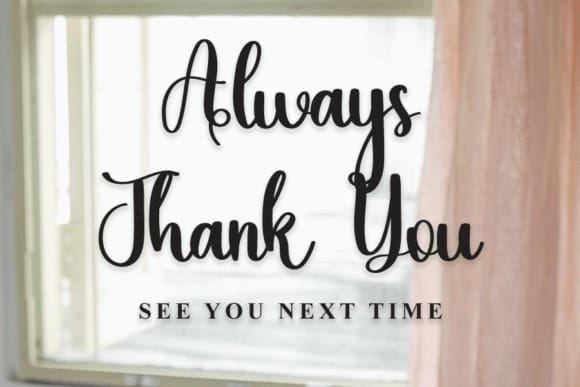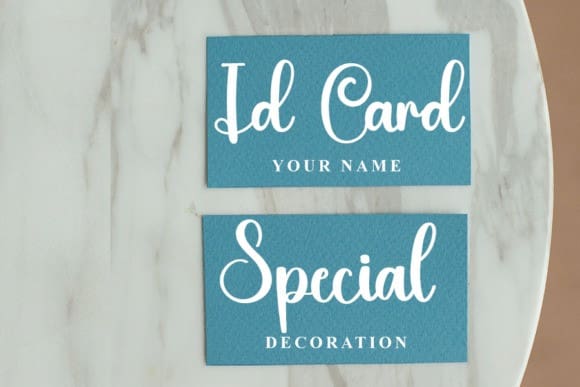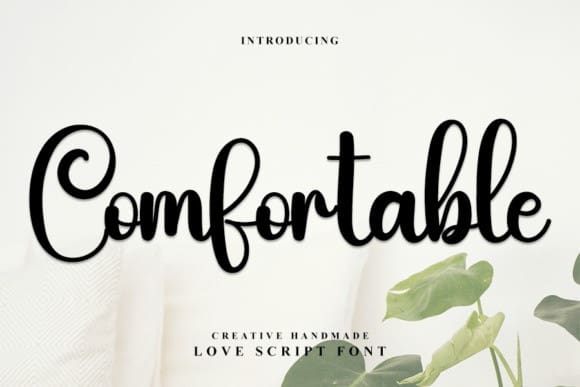
Comfortable Script Font
Comfortable Script Font, is a beautiful and refined script font. It has a classy, elegant, and modern look that can be used for logos, branding, invitations, stationery, wedding designs, social media posts, and much more!